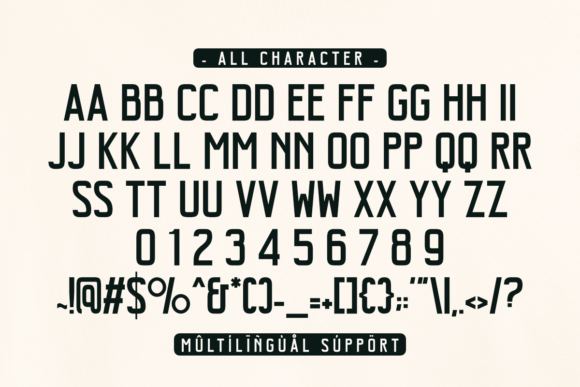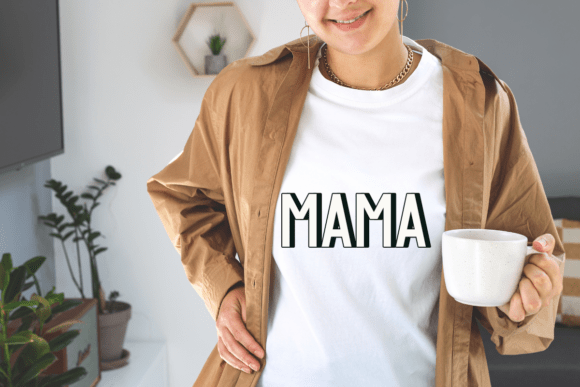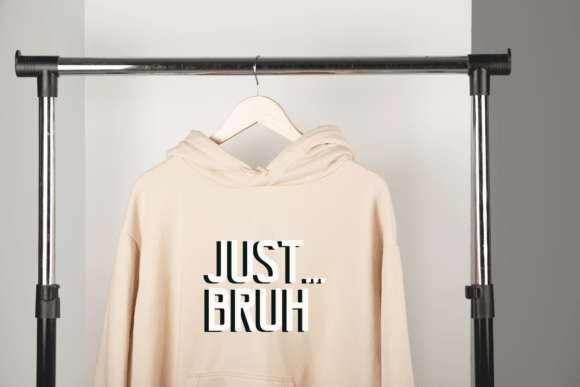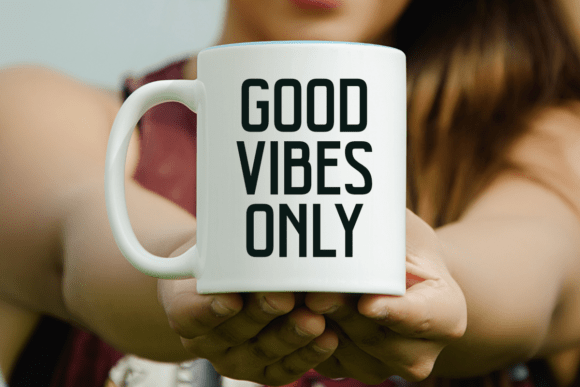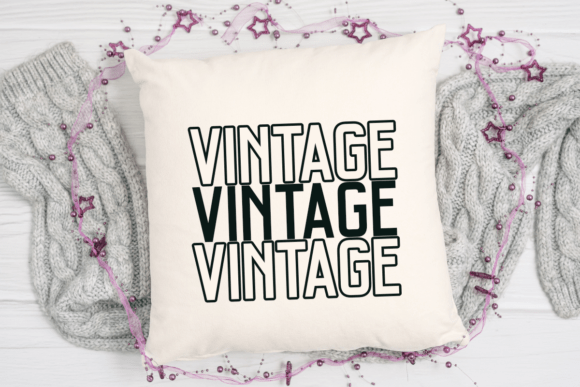
Bruh Font: The Ultimate Bold Sans Serif Font for Sarcastic Designs
Are you tired of using the same old boring fonts for your designs? Do you want to add a touch of humor and attitude to your creations? Look no further than the Bruh Font, a bold sans serif font that’s perfect for delivering your message with a perfect blend of modern style and sarcastic wit.
What is Bruh Font?
Bruh Font is an all-caps display font that’s designed to make a statement. Its bold and modern design makes it perfect for creators who love a good chuckle and a bit of playful mockery. Whether you’re an Etsy seller, a Cricut enthusiast, or a print-on-demand business, Bruh Font is the ultimate choice for adding a touch of humor and attitude to your designs.
Key Features of Bruh Font
- Bold and Modern Design: Bruh Font features a bold and modern sans serif design that’s perfect for making a statement.
- All-Caps Display Font: This font is designed specifically for display purposes, making it perfect for headlines, titles, and short phrases.
- Sarcastic Wit: Bruh Font is designed to add a touch of humor and attitude to your designs, making it perfect for sarcastic t-shirts, funny mugs, and ironic digital art.
- Confident and Assertive: This font exudes confidence and assertiveness, making it perfect for designs that need to make a bold statement.
Who is Bruh Font for?
Bruh Font is perfect for a variety of designers and crafters, including:
- Etsy Sellers: Add a touch of humor and attitude to your Etsy listings with Bruh Font.
- Cricut Enthusiasts: Use Bruh Font to create fun and sassy designs for your Cricut projects.
- Print-on-Demand Businesses: Make a statement with Bruh Font on your print-on-demand products, such as t-shirts, mugs, and phone cases.
- Sublimation Artists: Add a touch of humor and attitude to your sublimation projects with Bruh Font.
How to Use Bruh Font
- Pair with Other Fonts: Pair Bruh Font with other fonts to create a unique and eye-catching design.
- Use for Headlines and Titles: Use Bruh Font for headlines and titles to make a bold statement.
- Add to Your Designs: Add Bruh Font to your designs to add a touch of humor and attitude.
Benefits of Using Bruh Font
- Unique and Eye-Catching Designs: Bruh Font helps you create unique and eye-catching designs that stand out from the crowd.
- Increased Engagement: Add a touch of humor and attitude to your designs to increase engagement and drive sales.
- Perfect for Sarcastic Designs: Bruh Font is perfect for creating sarcastic designs that make a bold statement.
In conclusion, Bruh Font is the ultimate bold sans serif font for designers and crafters who want to add a touch of humor and attitude to their creations. With its modern style and sarcastic wit, Bruh Font is perfect for a variety of designs, from sarcastic t-shirts to funny mugs and ironic digital art. So why wait? Try Bruh Font today and take your designs to the next level!